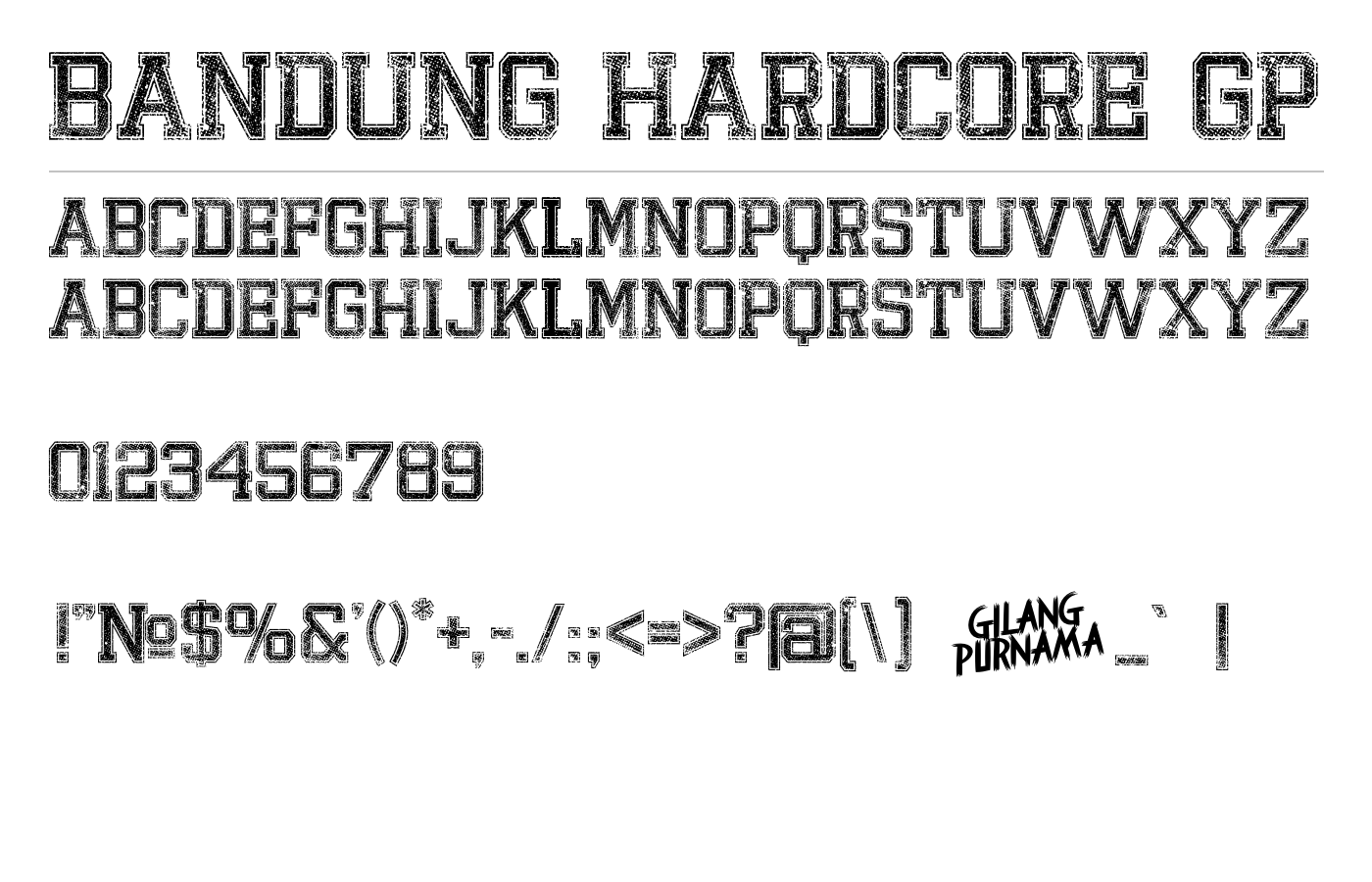
Bandung Hardcore GP is a bold, distressed slab serif font with strong geometric shapes and a vintage, rugged texture that gives it a gritty, industrial feel. Its uppercase-only style with evenly spaced, blocky letters and high contrast strokes makes it ideal for eye-catching headlines, posters, and branding that aims to convey strength and rebellious energy. This font works best where a bold, tough aesthetic is desired, such as in music, sports, or urban-themed designs.
Bandung Hardcore GP Font
About Bandung Hardcore GP Font
| Font family | Bandung Hardcore GP Font |
| Designer | Gilang Purnama A.K.A GEESUCKS |